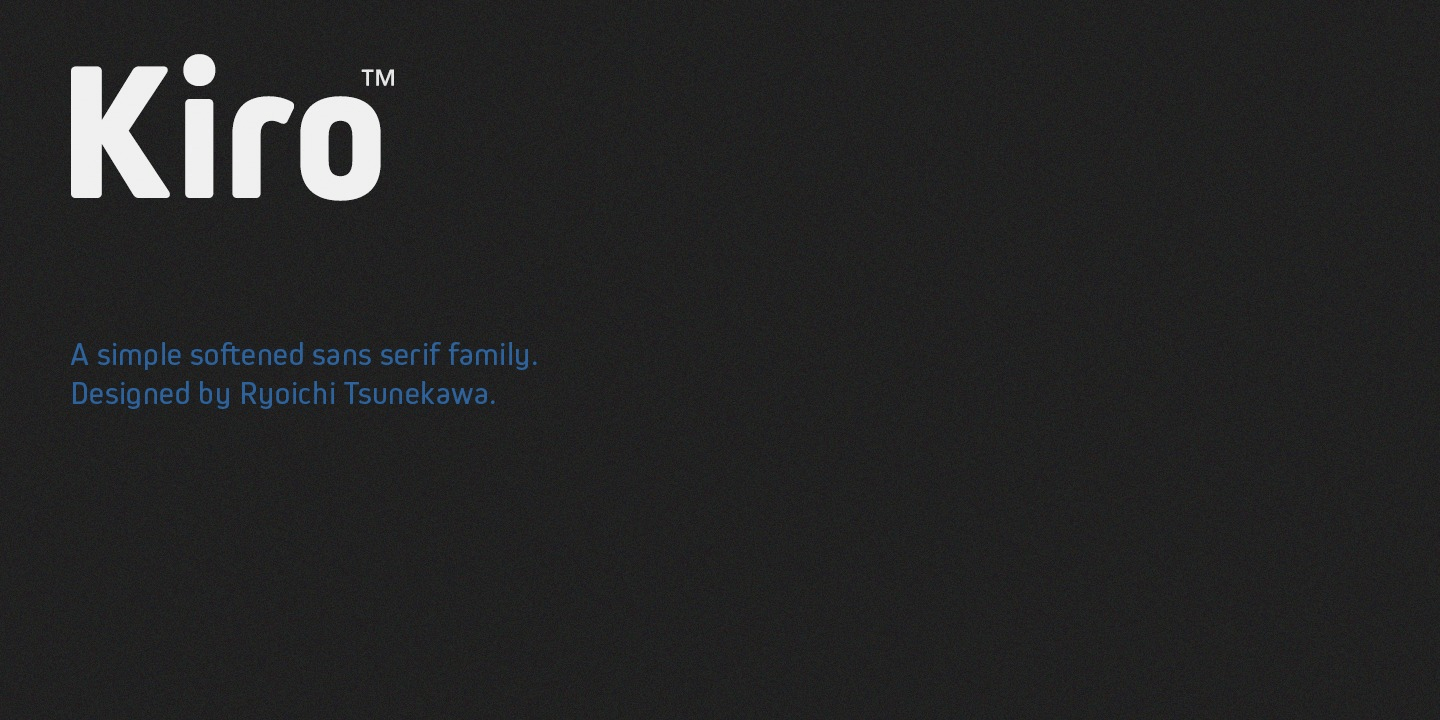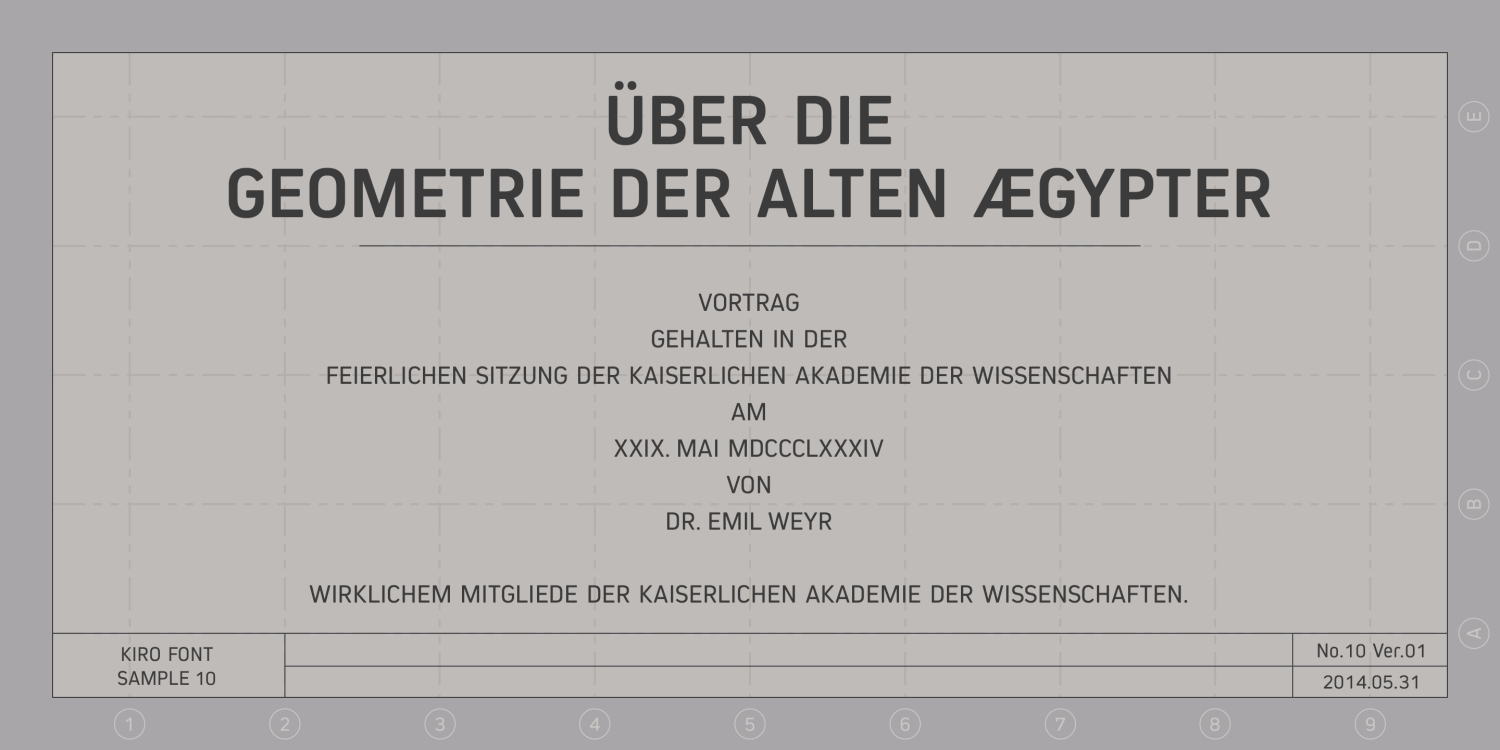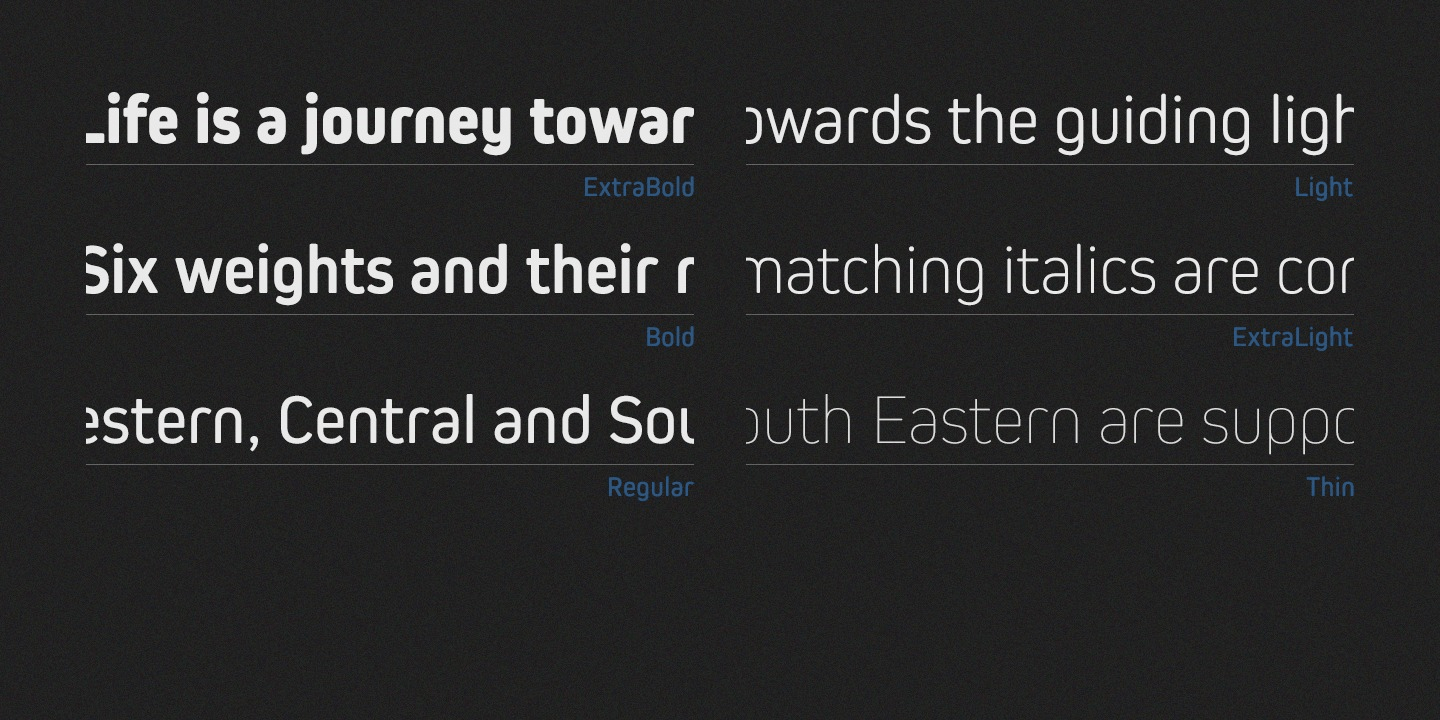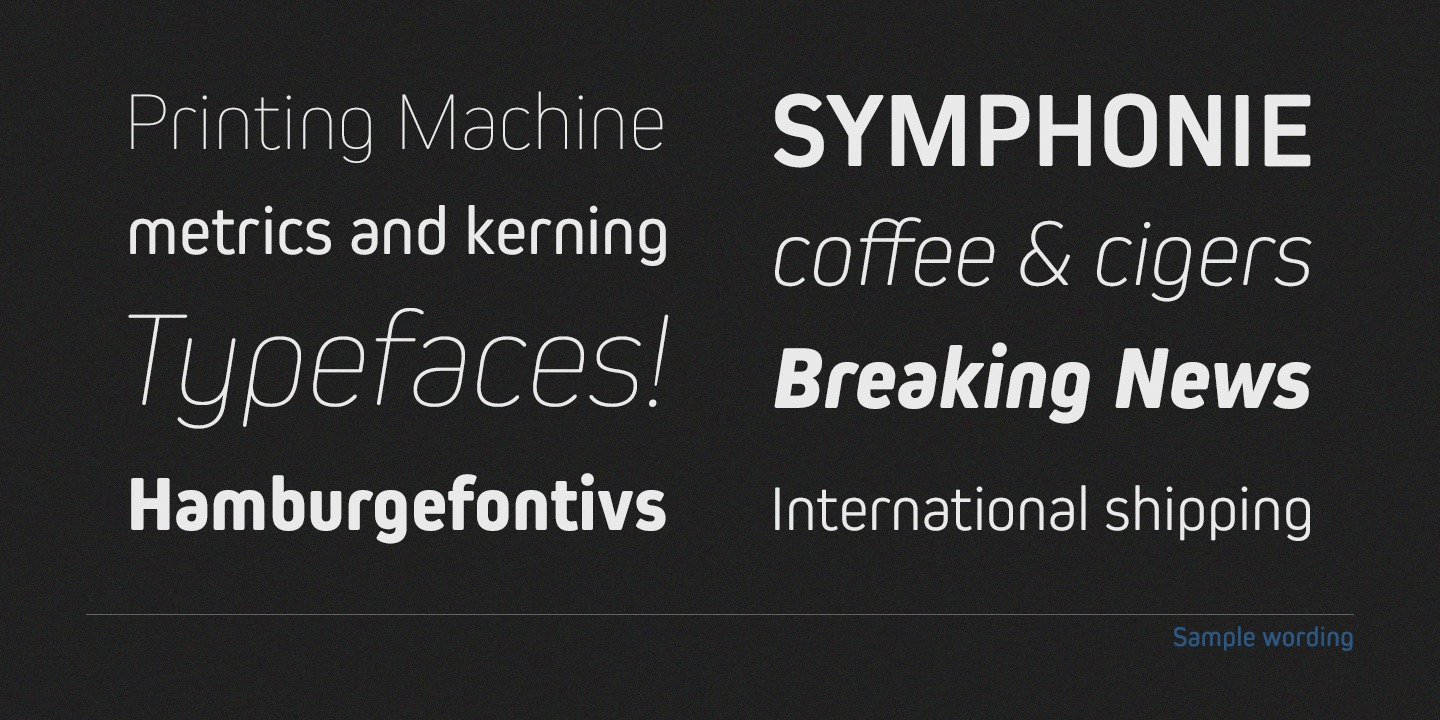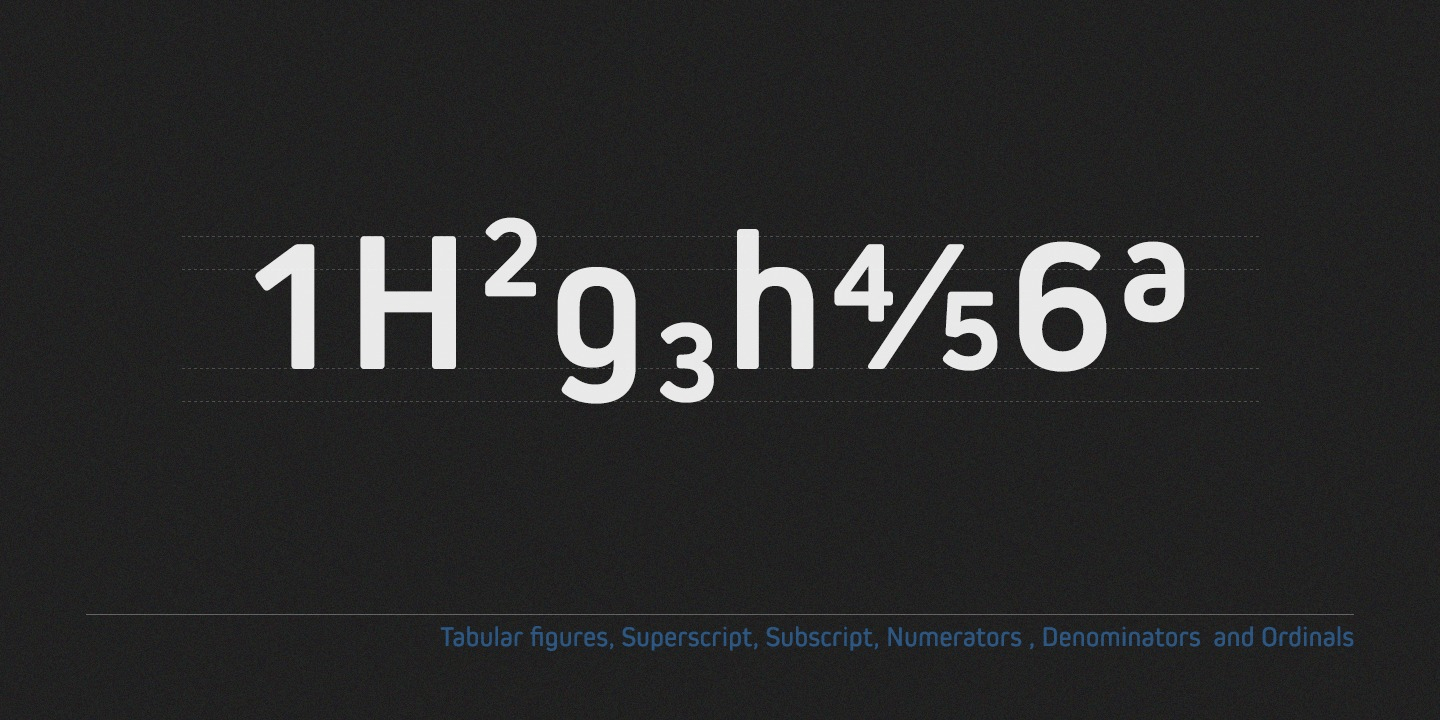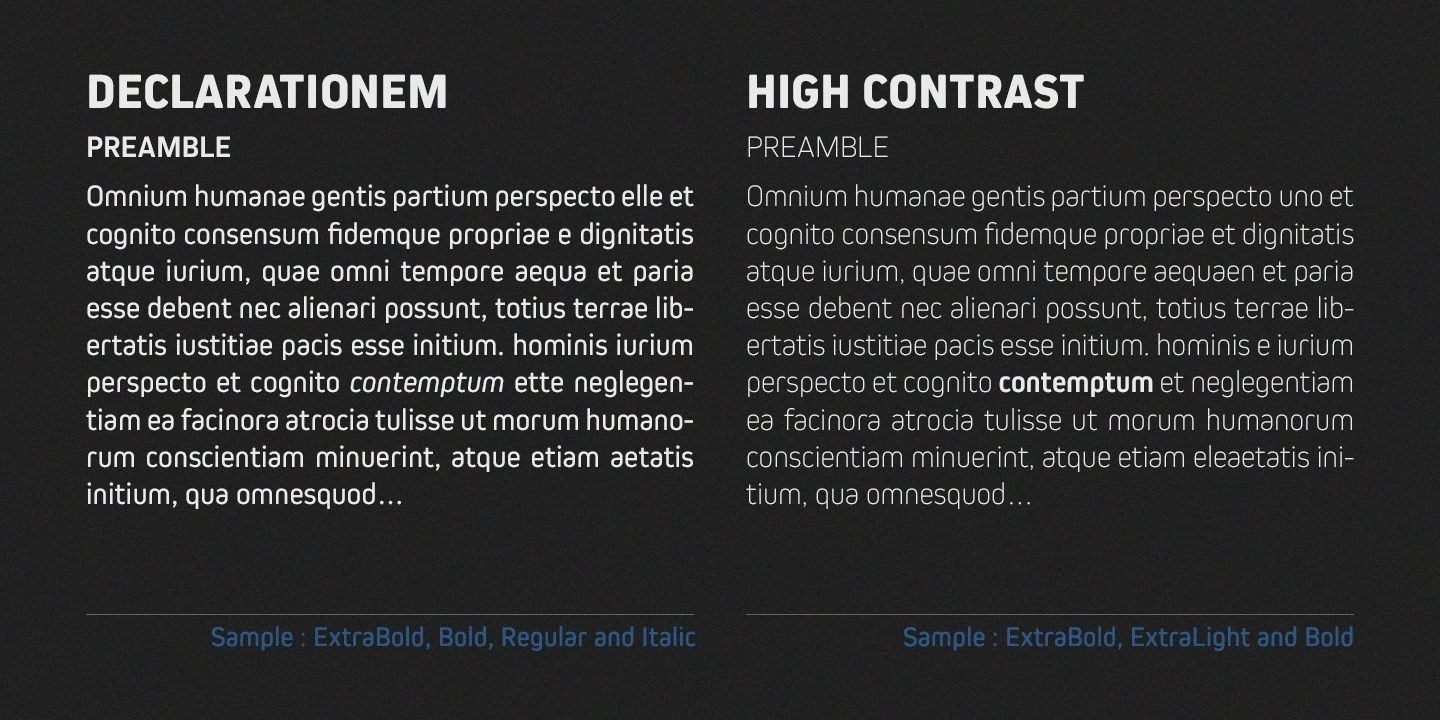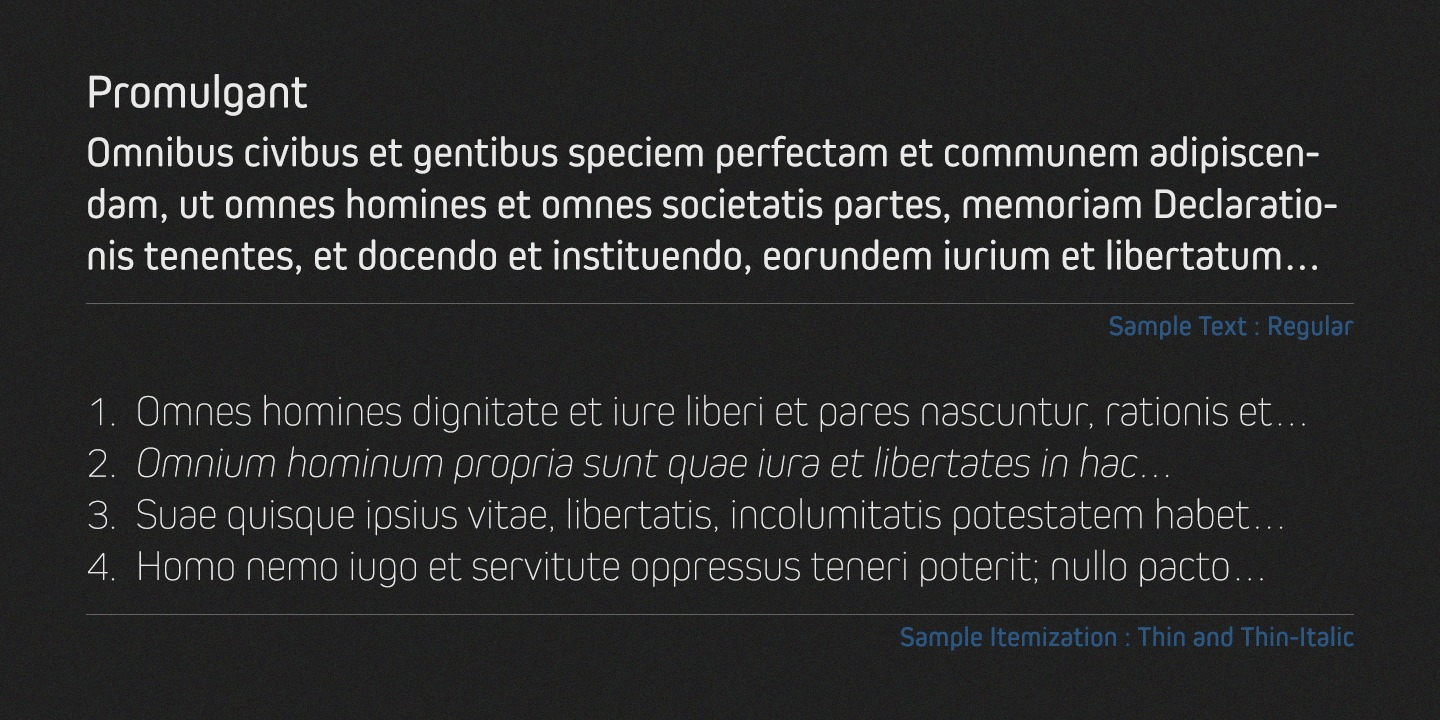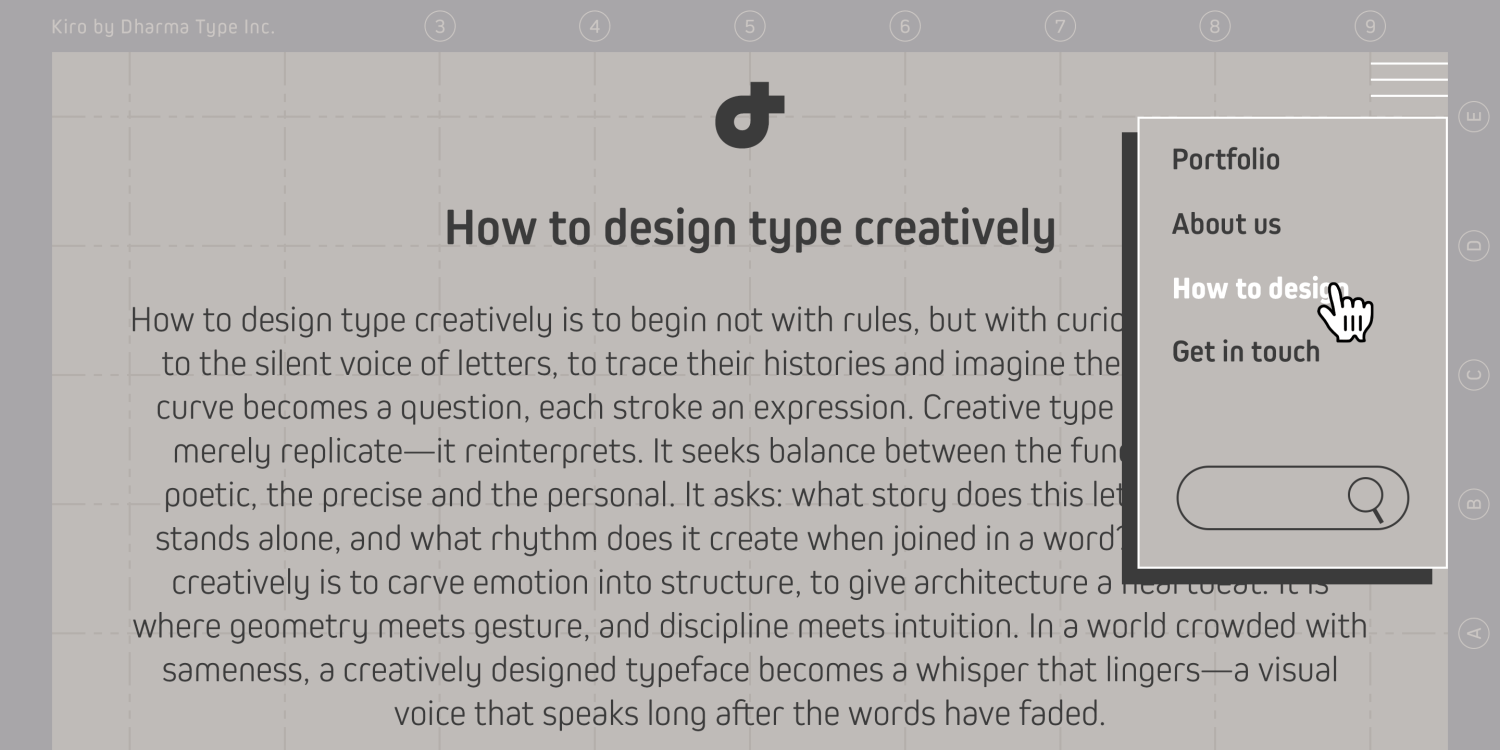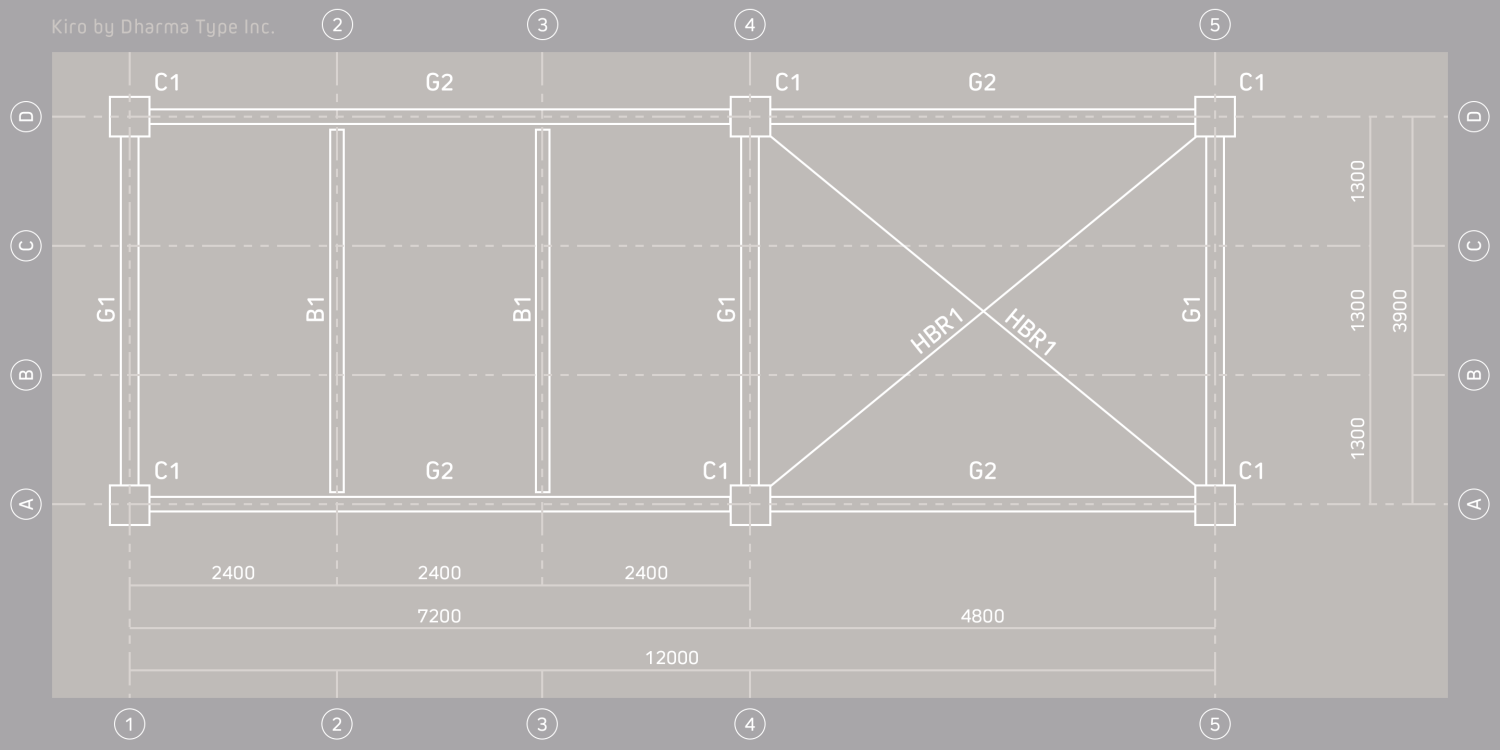
Kiro
Font Family by Dharma Type
Kiro is a minimal, condensed sans-serif type family designed by Ryoichi Tsunekawa.
The family consists of 12 styles—six weights from Thin to ExtraBold, each with matching italics—offering versatility for titles, headlines, and body text.
With its large x-height, Kiro ensures strong legibility and readability, even at smaller sizes.
The design features a semi-modular structure, with minimal letterforms achieved by removing unnecessary stems, and subtly rounded corners that add a warm, approachable feel.
Kiro strikes a balance between contemporary, urbane precision and friendly character, making it ideal for a wide range of editorial and branding applications.
The typeface supports Western, Central, and South Eastern European languages, as well as Afrikaans.
It also includes superior/inferior figures, denominators, numerators, and fractions, all accessible through OpenType features.